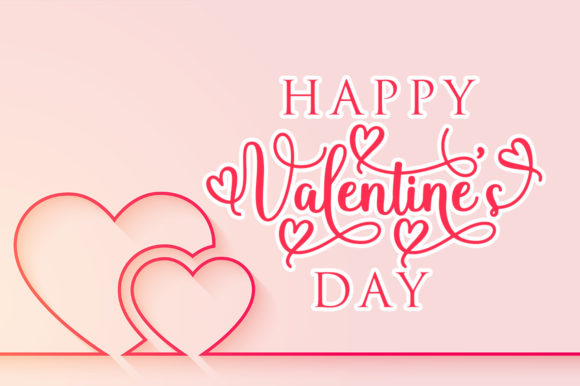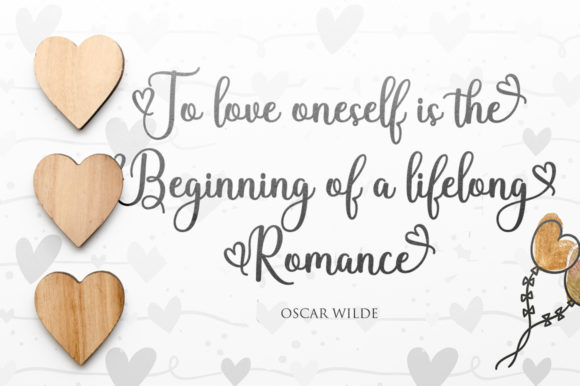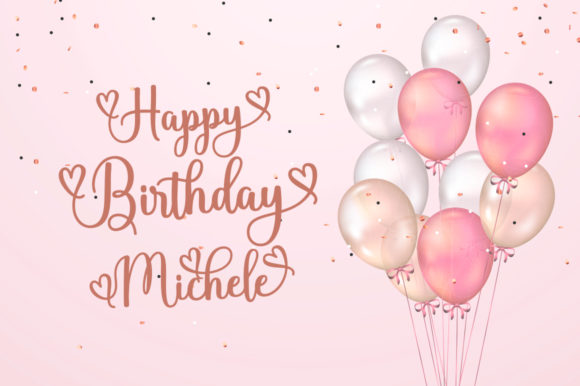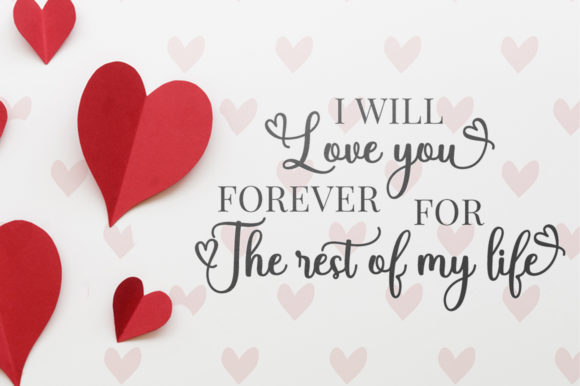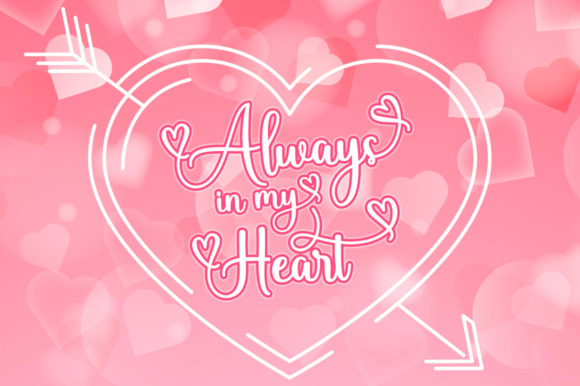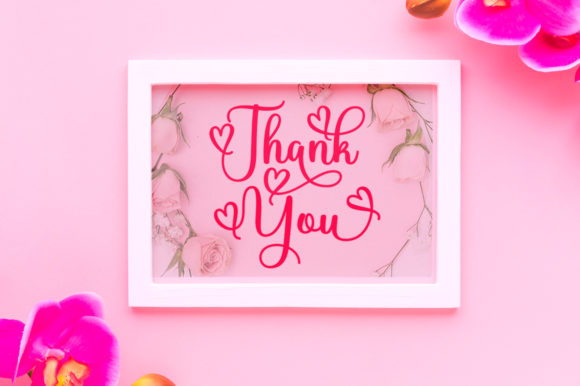
The Perfect Script for a Special Moment
Have you ever stumbled upon a font that makes you feel like a kid in a candy store? For me, that moment happened when I discovered the Baby Valentina Font. I was working on a wedding invitation project, and I desperately needed a font that exuded romance and elegance. As I browsed through the vast library of fonts, I finally stumbled upon Baby Valentina, and I knew I had found my match.
This enchanting handwritten font is perfect for any project that requires a touch of whimsy and sophistication. With its wide range of applications, from greeting cards to headlines, Baby Valentina Font is guaranteed to add a romantic feel to your next project. Its PUA encoding allows designers to access all of the beautiful glyphs and swashes with ease, making it a valuable addition to any designer’s toolkit.
Baby Valentina Font Key Features
- Font Family: Baby Valentina
- Font Style: Script
- Unique Characteristics: Handwritten, elegant, and cursive design, ideal for creating a whimsical and playful atmosphere in various design projects.
Baby Valentina Font Review
Overall, I think the Baby Valentina Font is a sweet addition to any design project. It’s perfect for creating a playful, whimsical atmosphere, especially when used in children’s products or nursery decor.
- Unique and distinctive letterforms that add a touch of personality to text
- Soft, rounded edges that make the font feel friendly and approachable
- Good legibility, even at smaller font sizes
- Wide range of languages supported, making it a great choice for international designs
- Might be too cutesy or over-the-top for some designs, so use with caution
- Not ideal for formal or professional projects, as it may come across as too playful
- Some letter combinations may be difficult to read or require extra spacing
In conclusion, the Baby Valentina Font is a fun and creative choice for designers looking to add some personality to their projects. While it may have some limitations, it’s a great option for the right type of design.
Tips for Getting the Most Out of Baby Valentina Font
Baby Valentina Font is ideal for:
- Children’s book covers and illustrations.
- Party invitations and decorations.
- Branding and marketing materials for kids’ businesses.
Alternatives to Baby Valentina Font
Great Vibes Font is a modern script font that is perfect for creating a fun and playful atmosphere. It is ideal for use in logos, branding, and advertising materials. Great Vibes Font has a more relaxed feel compared to Baby Valentina Font, which is more elegant and sophisticated. Great Vibes Font is a better choice when you want to convey a sense of friendliness and approachability.
Alex Brush Font is a elegant and refined script font that is suitable for use in high-end branding, packaging, and editorial design. It has a more polished and sophisticated feel compared to Baby Valentina Font, which is more whimsical and playful. Alex Brush Font is a better choice when you want to convey a sense of luxury and sophistication.
Carolyna Pro Font is a modern and elegant script font that is perfect for use in branding, packaging, and advertising materials. It has a more refined and sophisticated feel compared to Baby Valentina Font, which is more playful and whimsical. Carolyna Pro Font is a better choice when you want to convey a sense of elegance and sophistication.
Ostrich Sans Font is a modern and playful sans-serif font that is perfect for use in digital products, logos, and branding materials. It has a more relaxed and casual feel compared to Baby Valentina Font, which is more elegant and sophisticated. Ostrich Sans Font is a better choice when you want to convey a sense of friendliness and approachability.
Q: What is the font’s recommended usage?
Baby Valentina is ideal for use in design projects that require a touch of elegance and sophistication, such as wedding invitations, baby announcements, and luxury branding. Its flowing script style makes it perfect for creating beautiful, handwritten-like text.